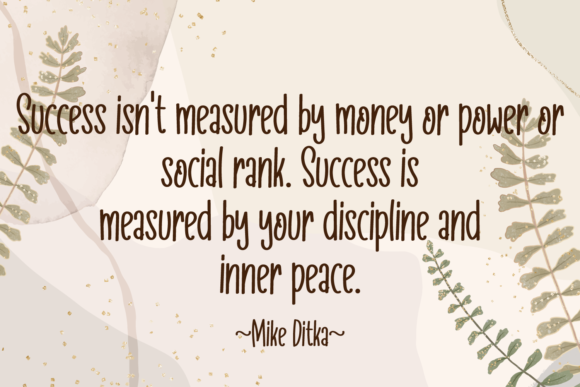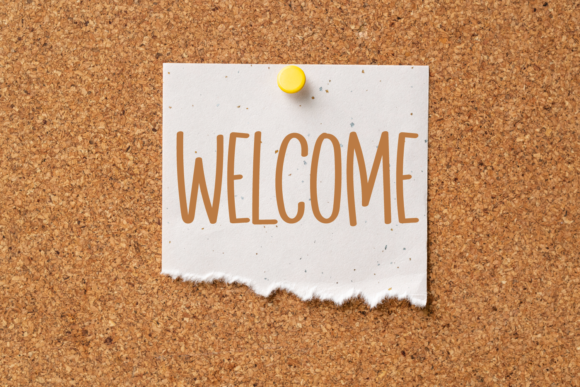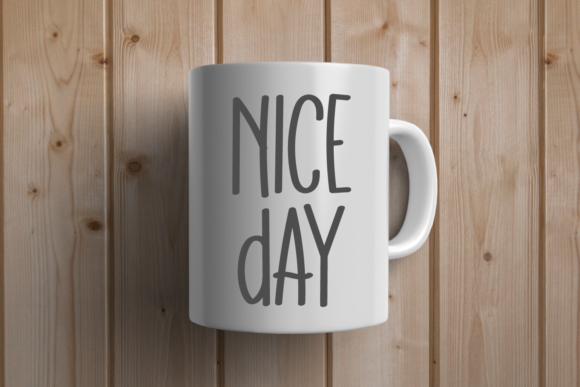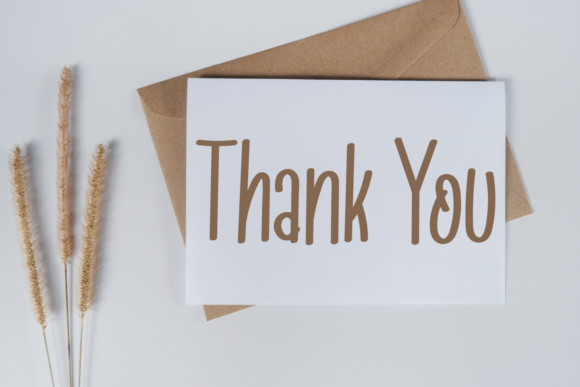
Writing Notes Font
About Writing Notes Font
“Writing Notes” is a straightforward handwritten font that offers a clean and organized script style. This font’s simplicity and clarity make it an excellent choice for a wide range of applications, from greeting cards to headlines and beyond. It has the versatility to enhance various design projects by adding a clean and neat feel.
The font’s understated elegance and legibility make it a reliable choice for conveying your message effectively. Its straightforward design ensures that the text remains easily readable, making it suitable for conveying important information in a clear and concise manner.
Whether you’re working on print materials like greeting cards or digital platforms like headlines, “Writing Notes” can bring a touch of simplicity and order to your projects. Its clean and neat feel ensures that your designs maintain a sense of clarity and professionalism.
In essence, “Writing Notes” serves as a versatile tool that goes beyond being just a font—it becomes a key element in your design arsenal. Its simplicity, readability, and clean feel make it a dependable choice for a variety of projects, ensuring that your message is conveyed with clarity and style.